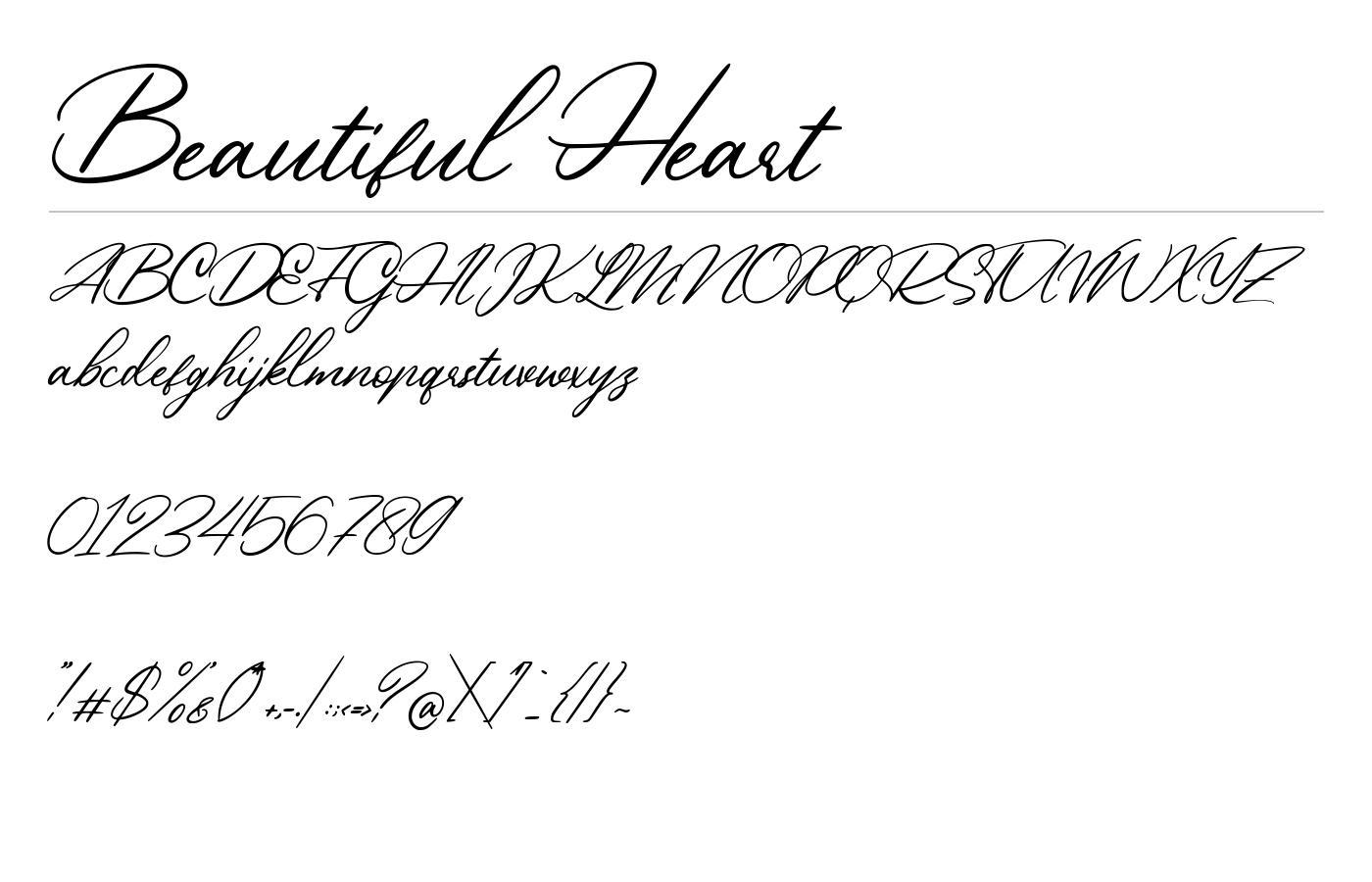
Beautiful Heart Font is an elegant, thin script typeface with flowing, connected letterforms that exude a sense of sophistication and grace. Its delicate, calligraphic style makes it ideal for romantic or upscale branding, invitations, and fashion-related projects where a refined, personal touch is desired. This font works best in headlines or logos where its intricate strokes can be fully appreciated without sacrificing readability.
Beautiful Heart Font
About Beautiful Heart Font
| Font family | Beautiful Heart Font |